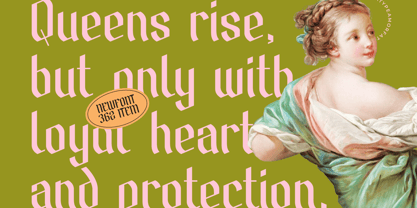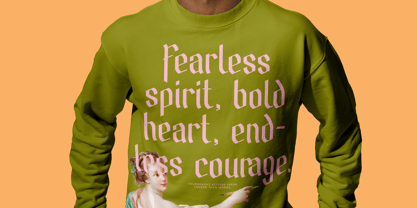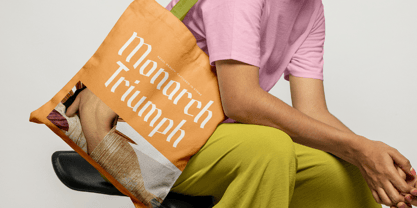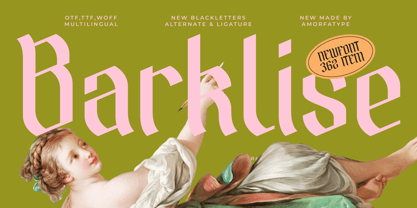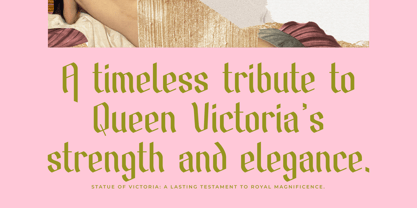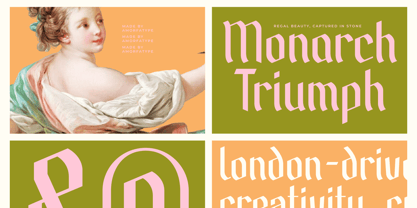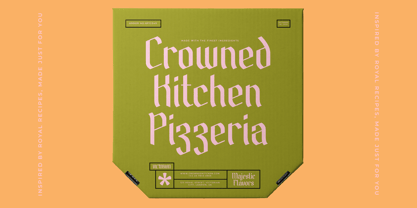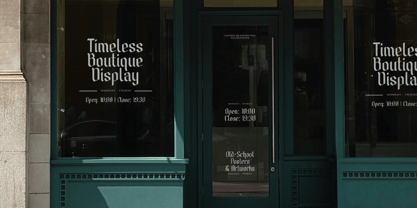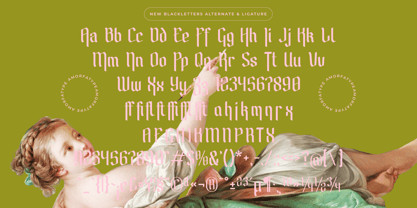
Barklise
by Amorfa Type
The Barklise Font Family was designed by Shiddiq Roihan and published by Amorfa Type. Barklise contains 2 styles and family package options.
Barklise – Modern Blackletters Font is a bold and expressive typeface that fuses gothic tradition with modern edge. Featuring sharp strokes, vintage-inspired letterforms, and a strong visual presence, Barklise is perfect for tattoo designs, music artwork, logos, posters, and bold branding. Designed by Amorfatype Studio, this font brings attitude and elegance into one striking blackletter style.